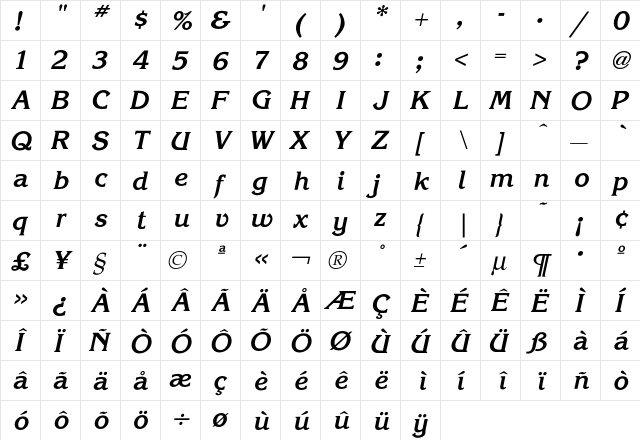
Korinna BoldKursiv
Design Context for Korinna Typeface
Korinna offers clean, dependable letterforms without strong stylistic allegiance, making it a practical choice for designers who need flexibility. The slanted form adds forward momentum and visual energy. Its bold stroke weight gives it real presence on the page.
Pro Tip: Use Korinna for emphasis, pull quotes, and subheadings where its slanted energy can add rhythm to the layout.